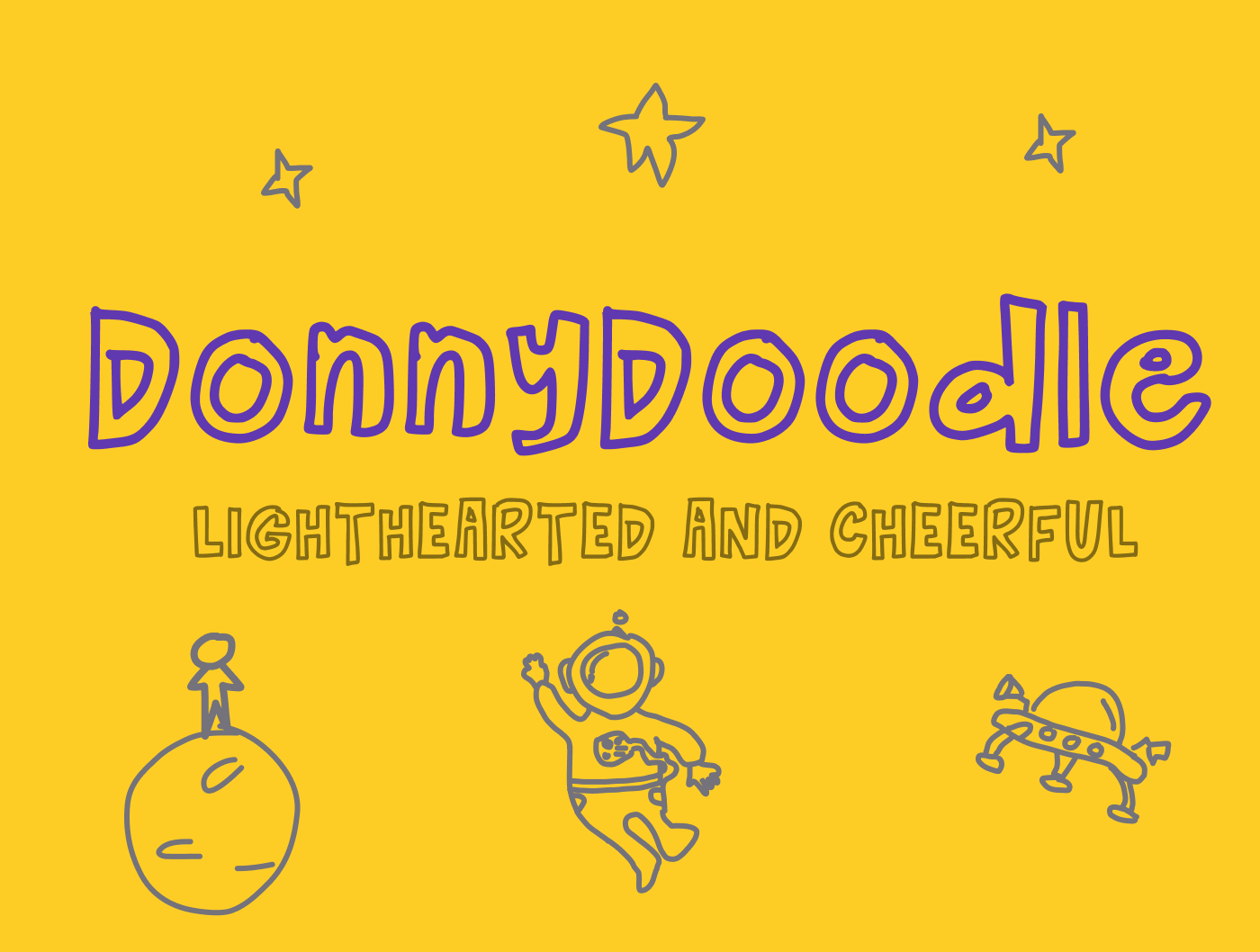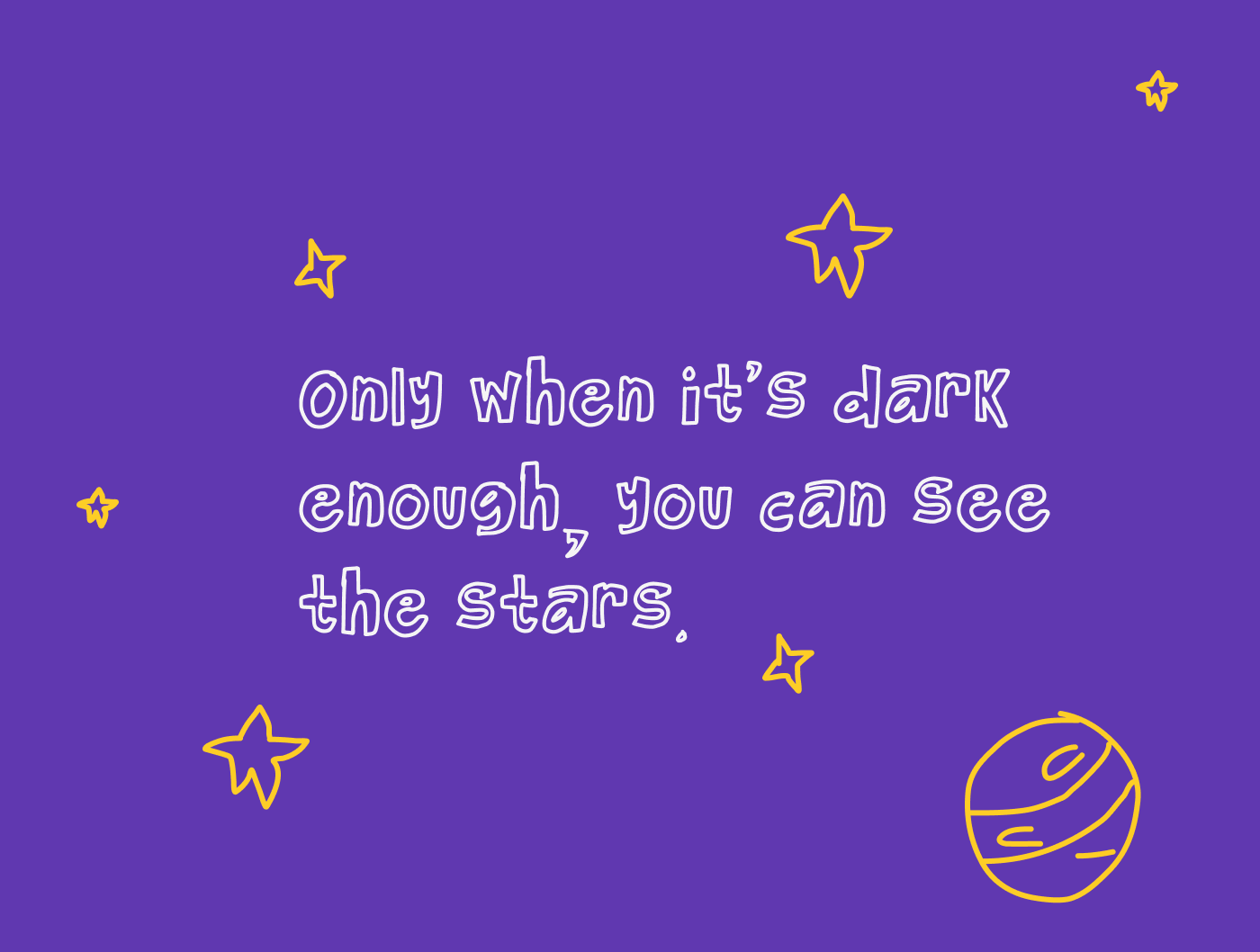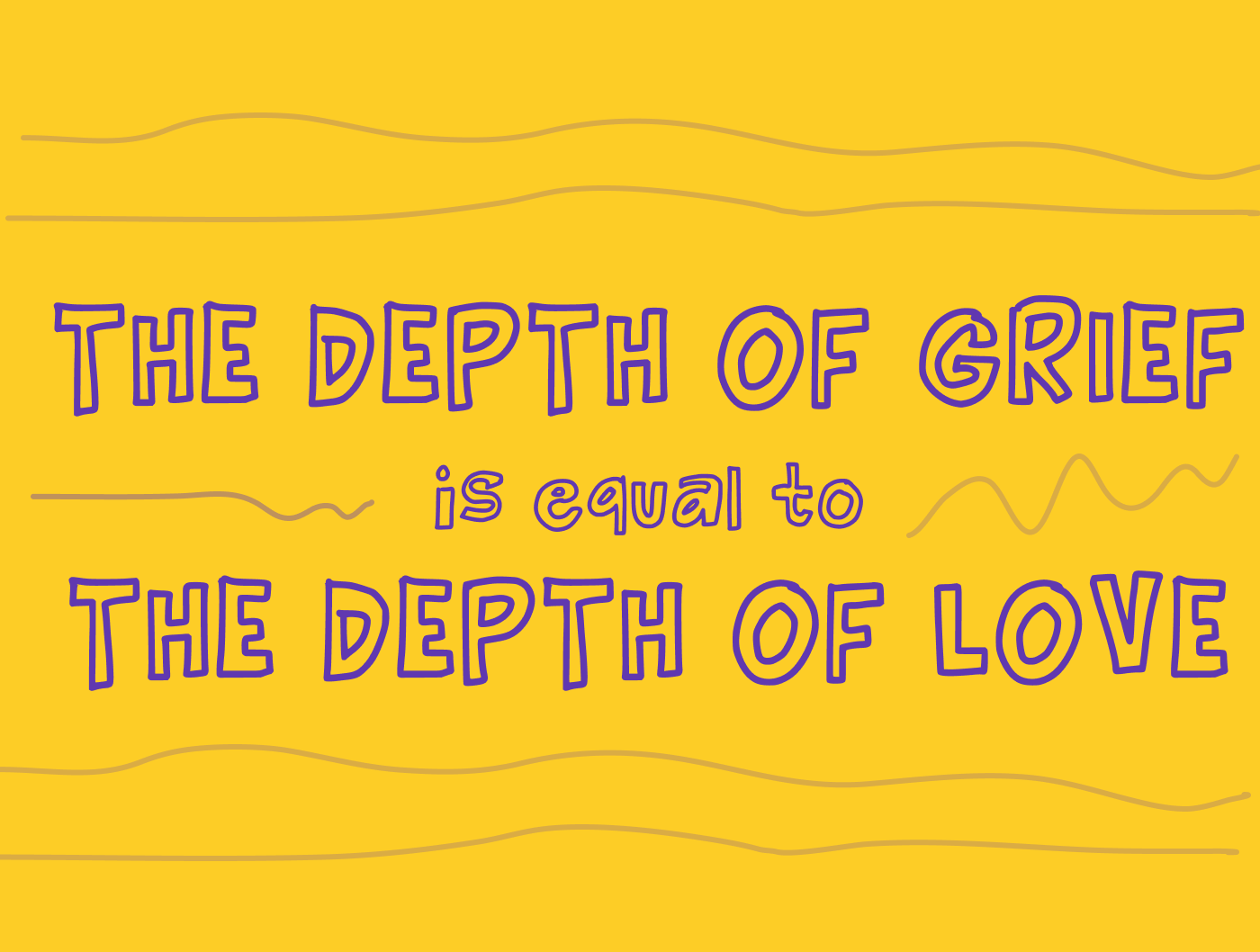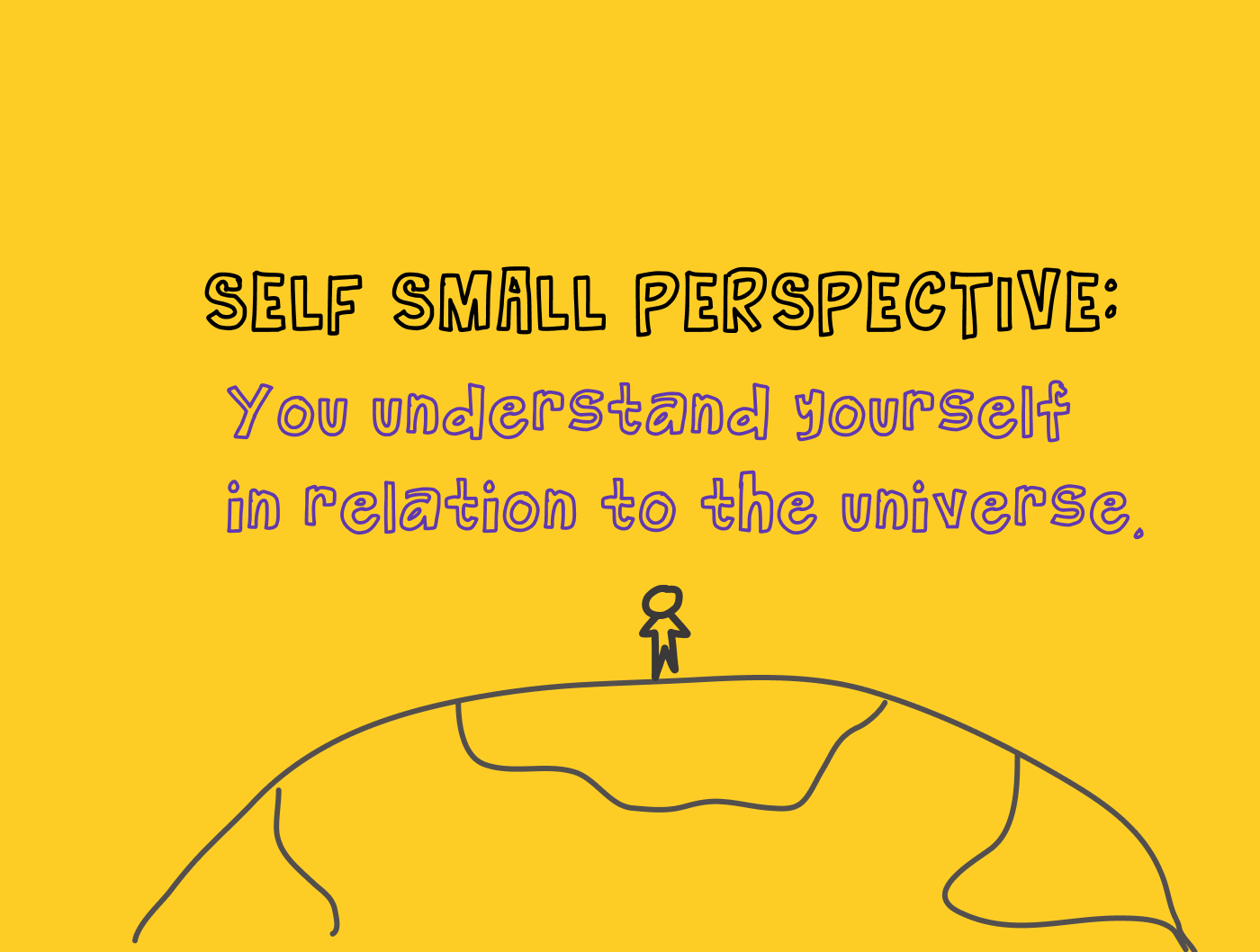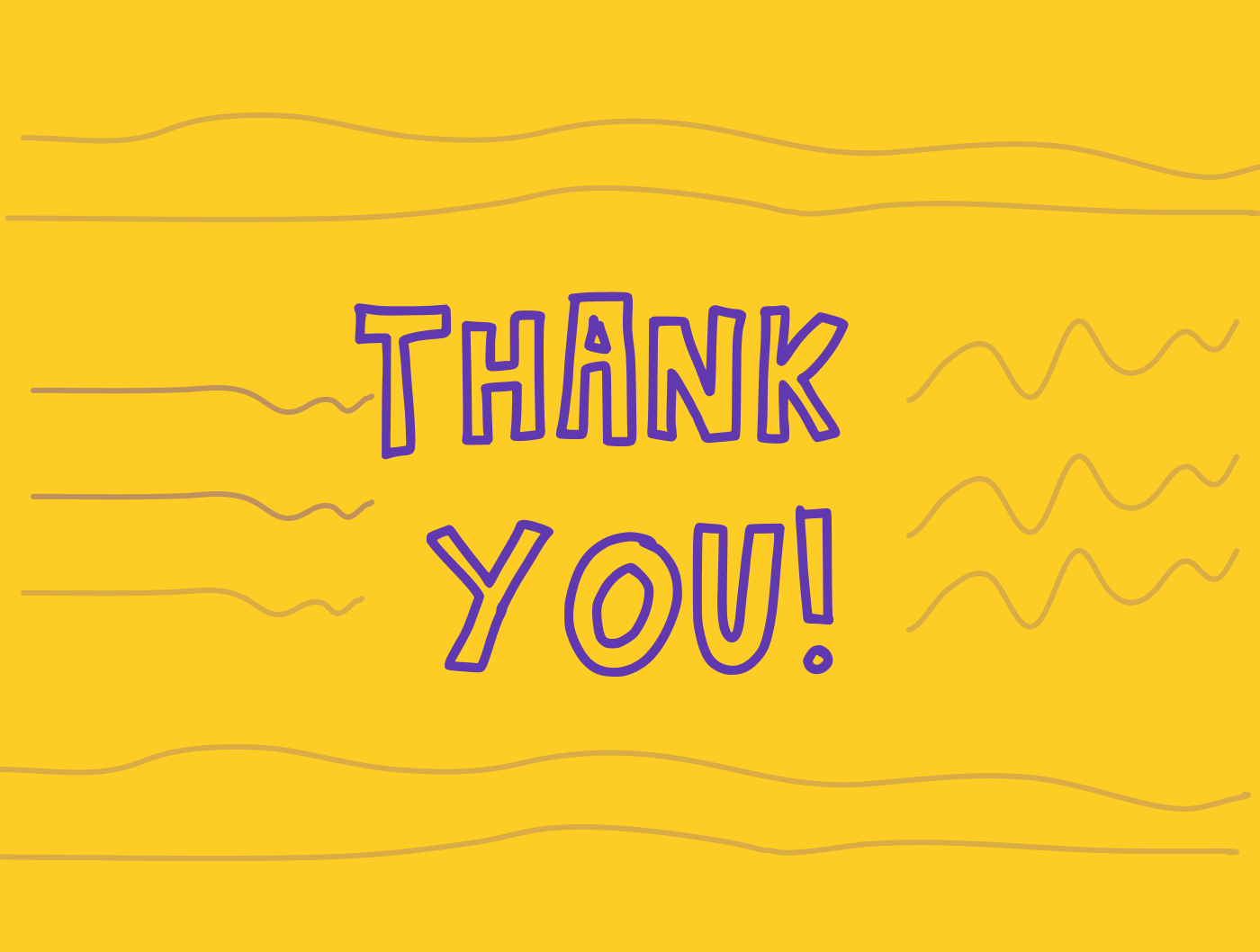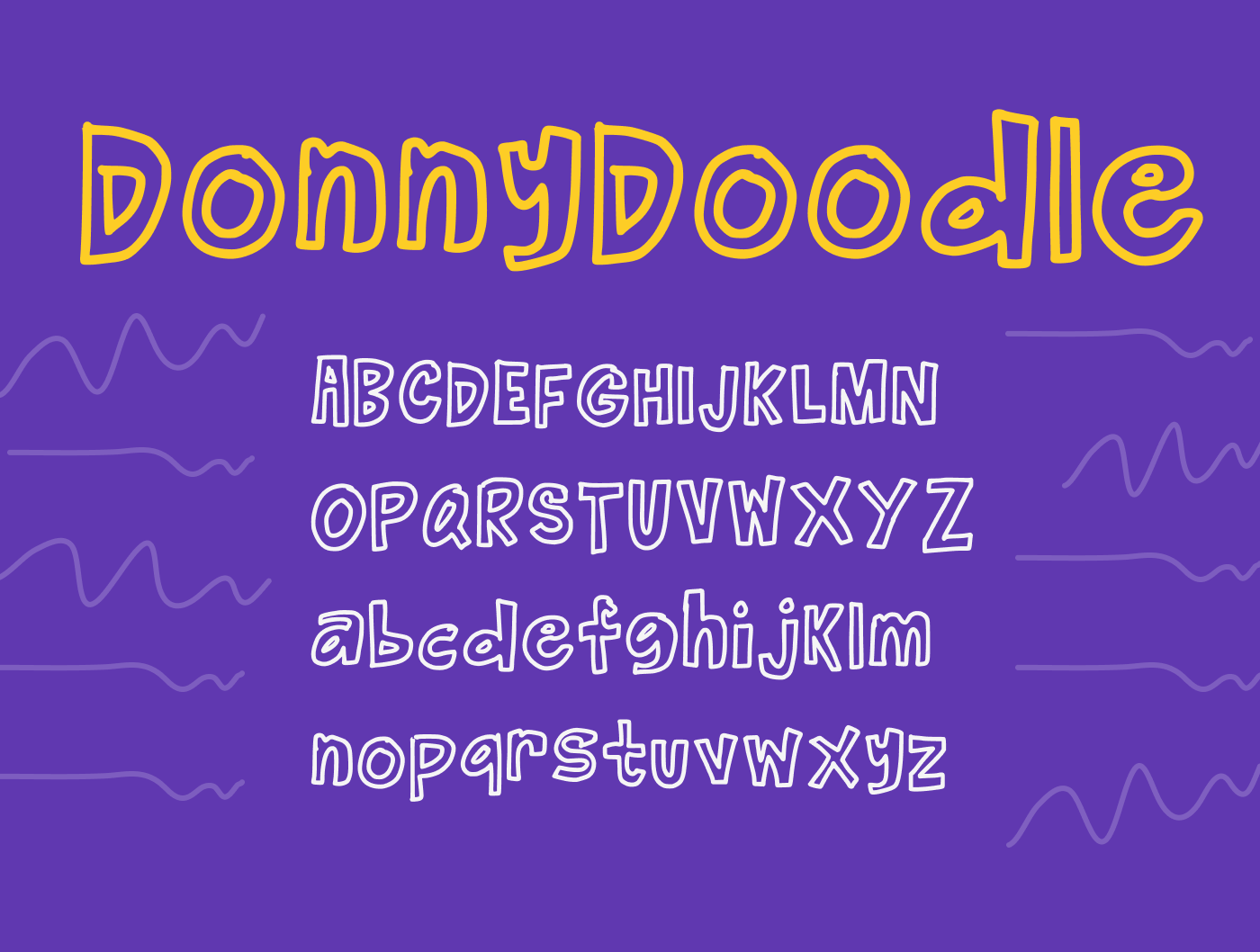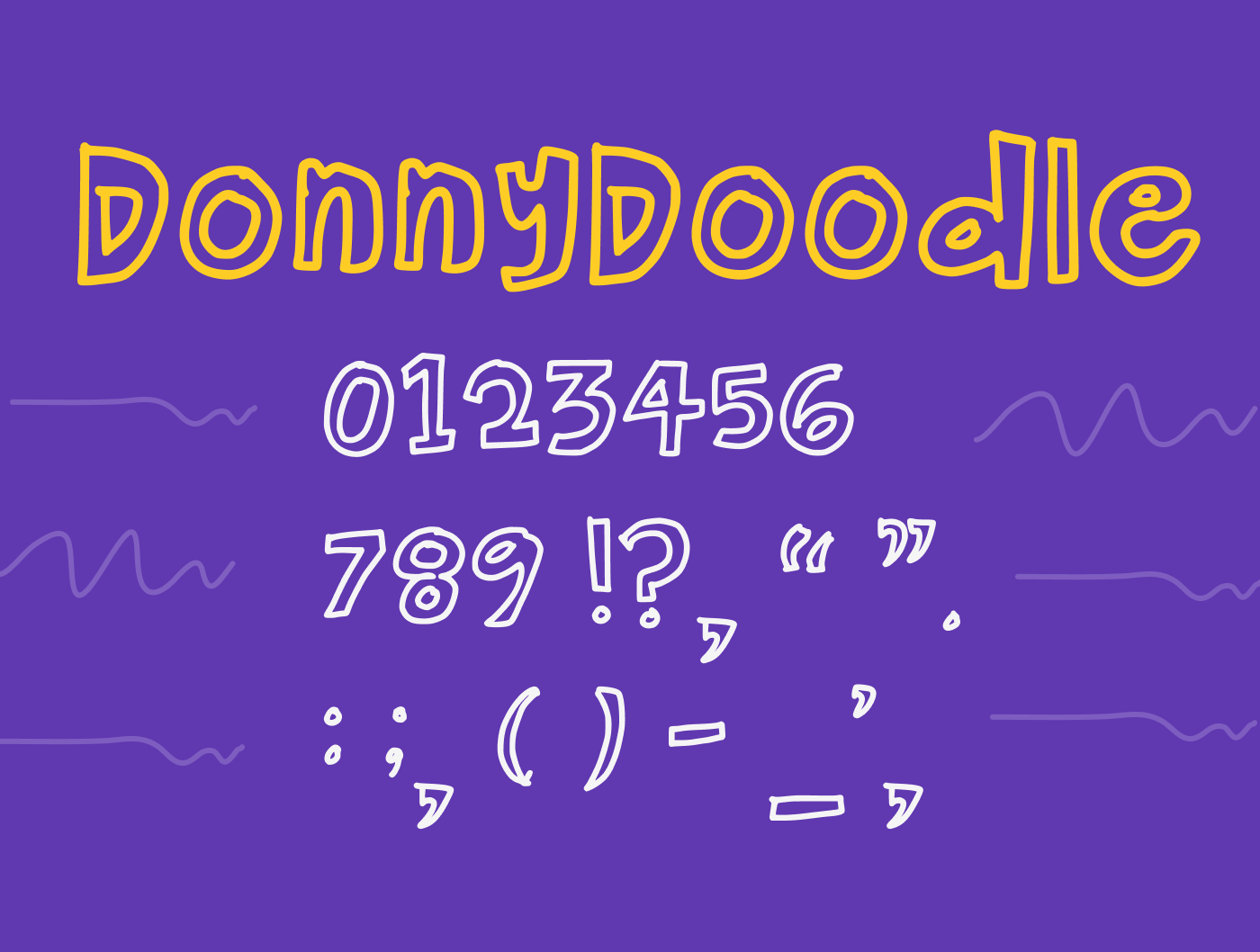
Donny Doodle handwritten font
Donny Doodle FAQ
What kind of font is Donny Doodle?
Donny Doodle is a playful hand-drawn doodle font with bold outlined letters for posters, invitations, classroom materials, stickers, and casual creative projects.
Does Donny Doodle include uppercase, lowercase, numbers, and punctuation?
Yes. Donny Doodle includes uppercase letters, lowercase letters, numbers, and common punctuation for everyday design use.